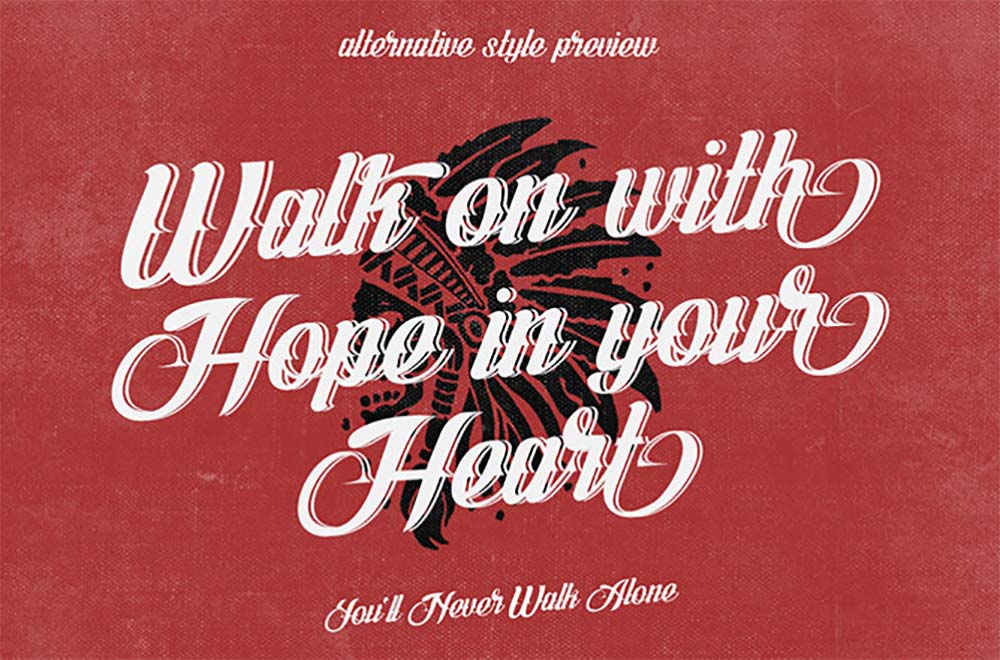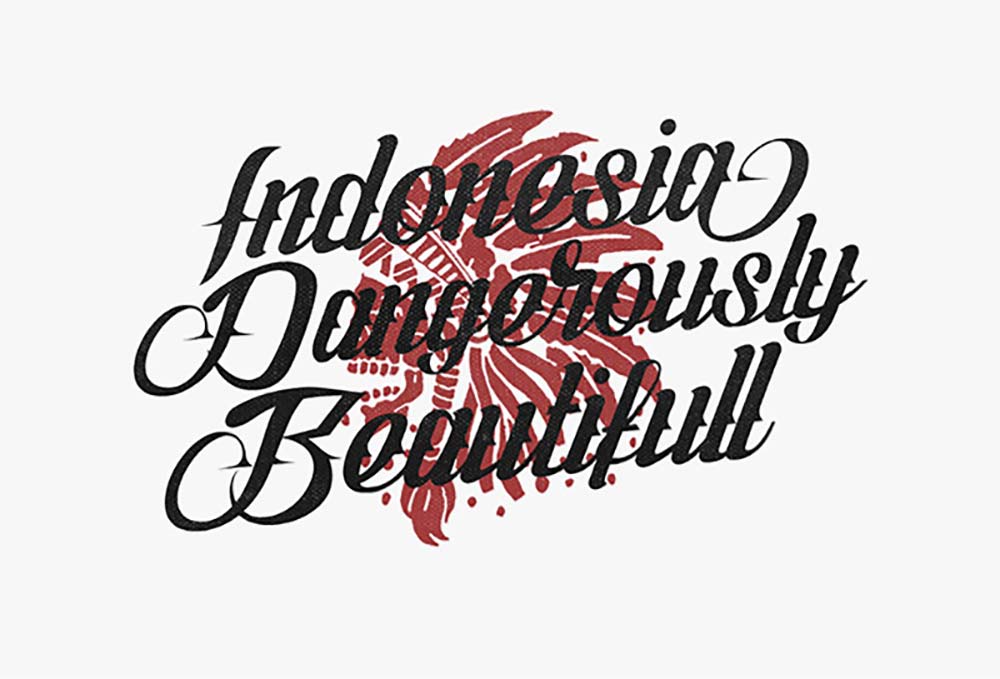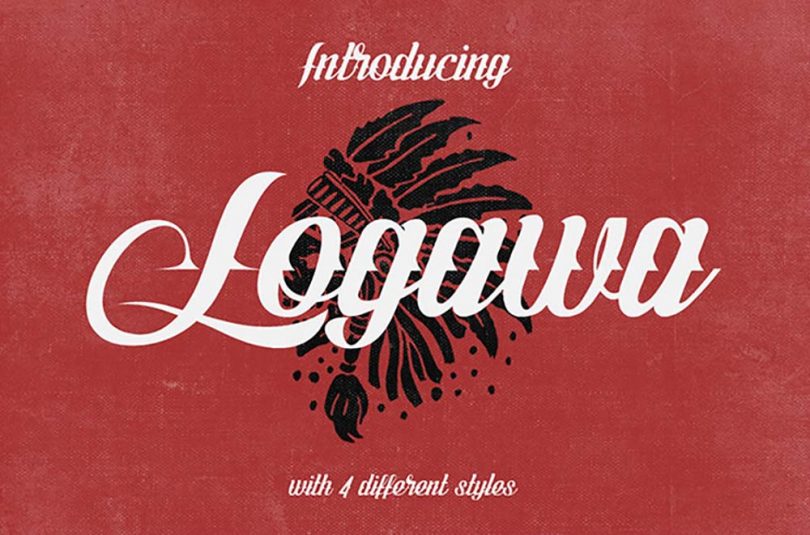
The Logawa Script font is a hand-painted typography in four different styles inspired by the tattoo artist lettering. This free font includes four different styles which is perfect for headlines, logotypes, t-shirt and apparel designs to add some strong visual to your project. Grab this typeface now and feel free to use and share it. Also don’t forget to subscribe to our YouTube Channel to get more amazing stuffs and useful information.